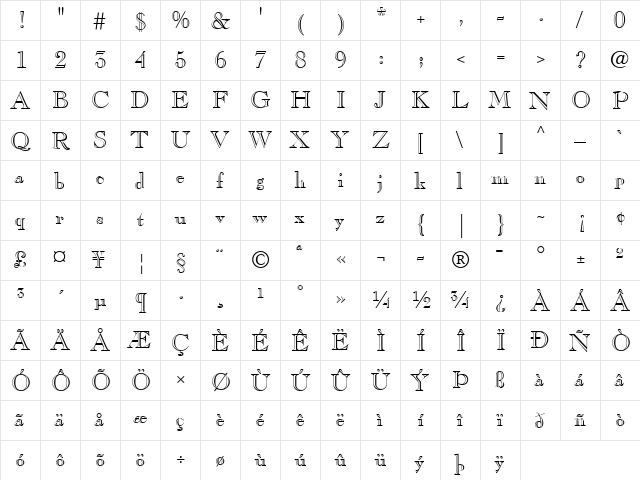
CaslonOpenFace LT Regular Font Preview
CaslonOpenFace LT Regular
Design Context for CaslonOpenFace LT Typeface
CaslonOpenFace LT takes a measured approach to typography — its balanced proportions and neutral character make it a reliable workhorse for both digital and print work. Its slender proportions lend an understated elegance to any composition.